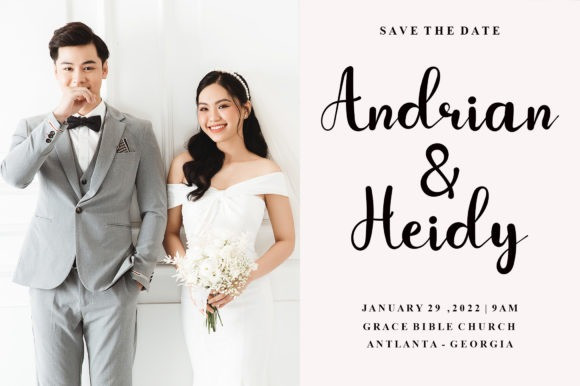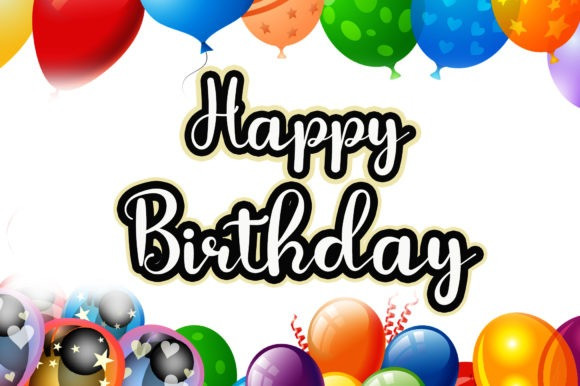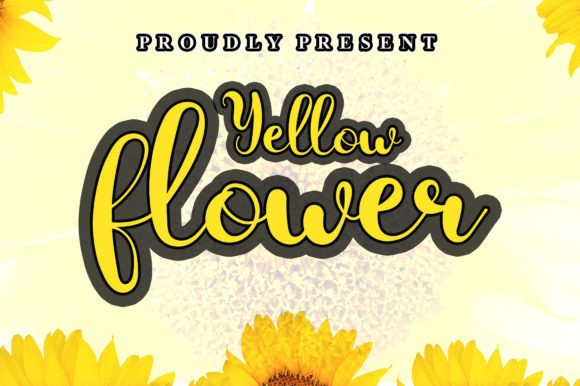
Yellow Flower Font
Yellow Flower Font is a stylish modern font that is suitable for branding, signature, wedding invitation, promotion, product packaging, and other needs. It will elevate a wide range of design projects to the highest level.